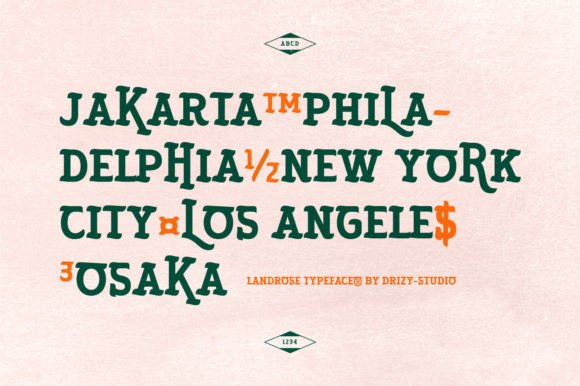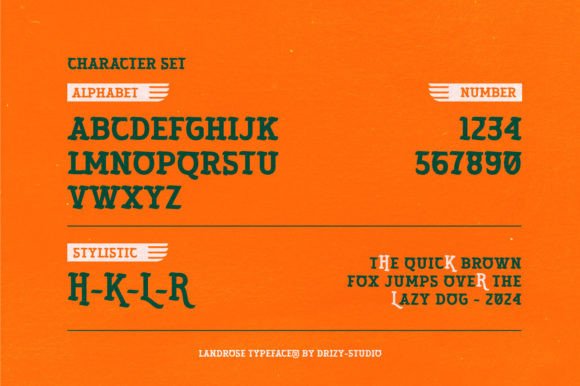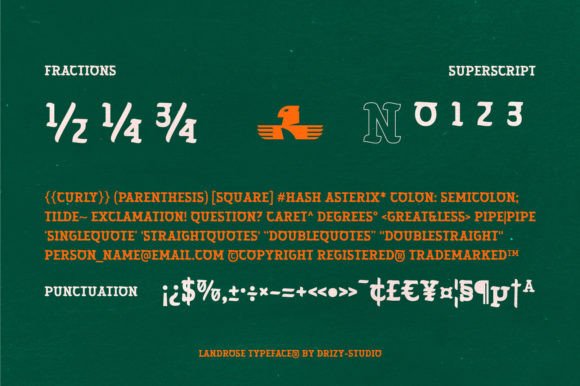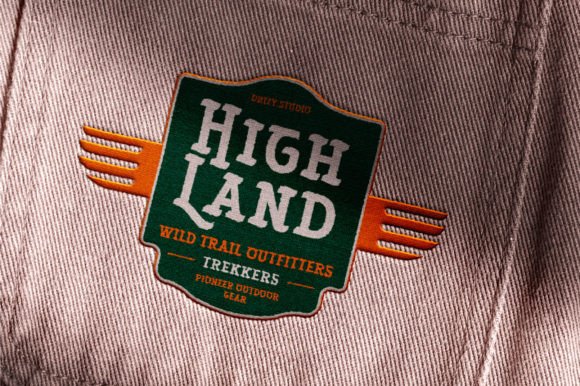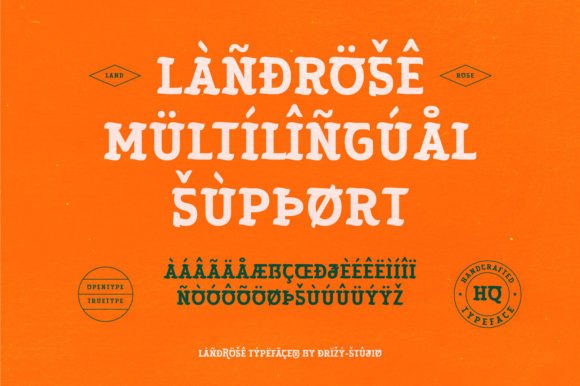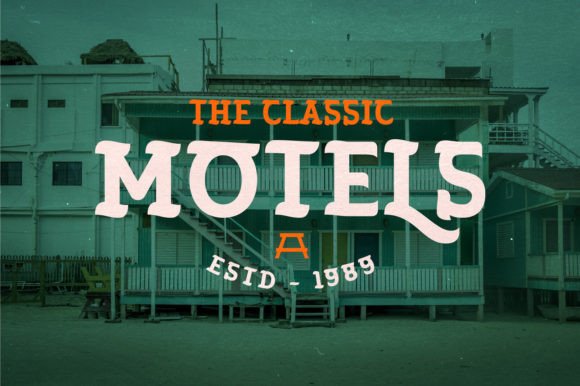
Introduction to Landrose Font
Do you remember the moment when you stumbled upon a dusty old map, and the thrill of discovery sparked within you? The one that made you want to set sail on a journey of adventure, to explore the unknown, and to uncover hidden secrets? That’s the magic of the Landrose Font, a typographic treasure that embodies the essence of exploration and creativity.
| 👤 Author | Drizy Studio |
As a designer, you’re always on the lookout for the perfect design resource to elevate your next creative project. And when it comes to adding a touch of sophistication and elegance, the Landrose Font is an exceptional choice. With its high-quality, transparent background, and flowing curves, this font is a must-have for any design enthusiast. Plus, it’s available for free download, making it an accessible and valuable addition to your design arsenal.
Whether you’re working on a bold headline, a captivating title, or simply want to add a touch of adventure to your design, the Landrose Font is the perfect companion to guide you on your creative journey.
Key Features of Landrose Font
- High-quality, unique design perfect for creative projects, with a transparent background for versatility.
- Comes in a range of sizes, from 12px to 72px, allowing for flexibility in creative projects.
- Designed at 72 dpi resolution, making it suitable for digital applications, including web design and graphic design.
- Features a modern, elegant style that can be used for a variety of purposes, from branding to editorial content.
Honest Review: Landrose Font
I recently had the chance to work with the Landrose Font, and I must say, it’s a lovely addition to any design project. The font itself is high quality, with a unique and elegant touch that sets it apart from other fonts in its class.
One of the standout features of the Landrose Font is its transparent background, which makes it perfect for creative projects where you want to add some subtle flair without overpowering the rest of the design. I used it for a recent branding project, and it really helped to elevate the overall aesthetic.
Here are some things that work well with the Landrose Font:
- ✨ Unique and elegant design
- ✨ High-quality typography
- ✨ Perfect for creative projects and branding
- ⚠️ Limited character set (only supports Latin alphabet)
- ⚠️ Not ideal for projects that require a lot of bold or italic text
Overall, I’m really impressed with the Landrose Font. It’s a great design resource that’s perfect for adding a touch of elegance to your creative projects. And the best part? It’s free to download, making it a great option for designers on a budget.
To get the most out of the Landrose Font, use it with a transparent background to create a clean and creative design. You can also use it in combination with other design elements to create a unique look.
The Landrose Font is commonly used in creative projects such as graphic design, logo creation, and branding. It’s also a popular choice for free download due to its high quality and versatility.